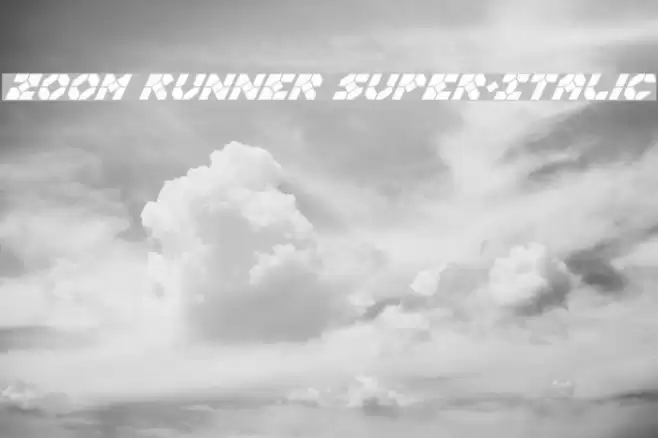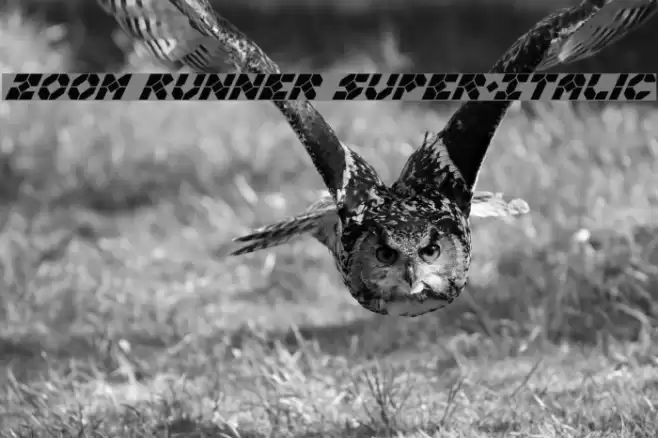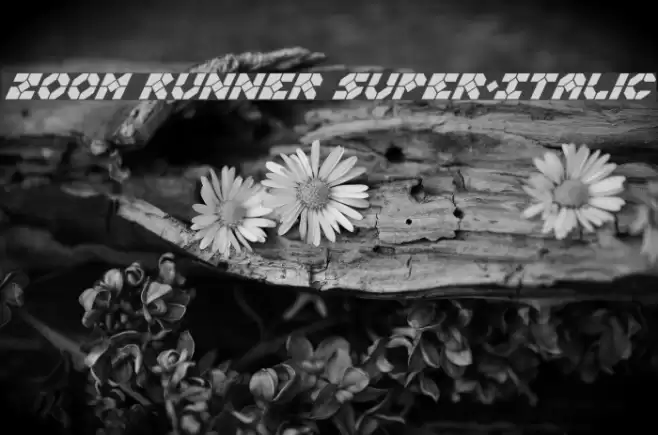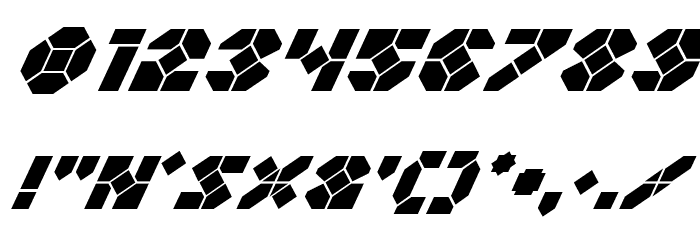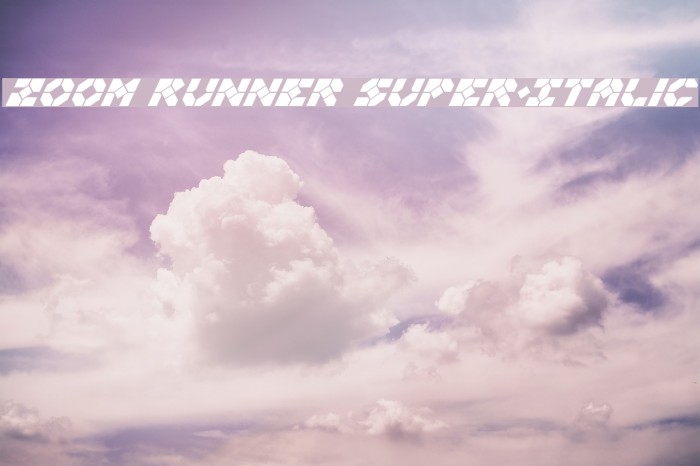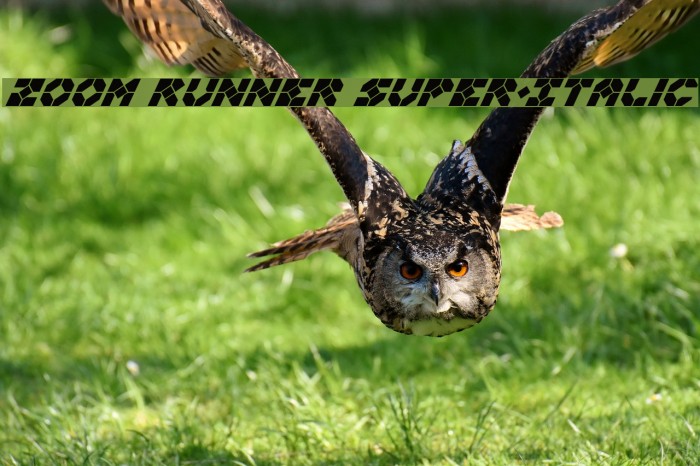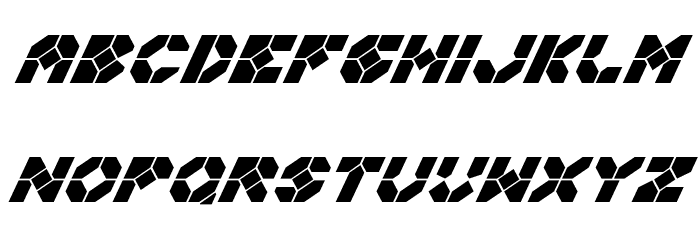
Zoom Runner Super-Italic Font
Zoom Runner Super-Italic Description
This font features a bold, geometric design with a futuristic and dynamic appearance. The characters are constructed from angular shapes, giving them a fragmented and edgy look. The italic style adds a sense of motion and speed, making it ideal for projects that require a modern and energetic feel. The font's high contrast and distinct character shapes ensure excellent readability, even at smaller sizes. Its unique style makes it stand out, perfect for creative and innovative design projects.
A bold, geometric, and dynamic italic font with a futuristic style from Sci-fi fonts.
- Proposed Projects: Ideal for sports branding, tech-related designs, video game titles, and dynamic posters.